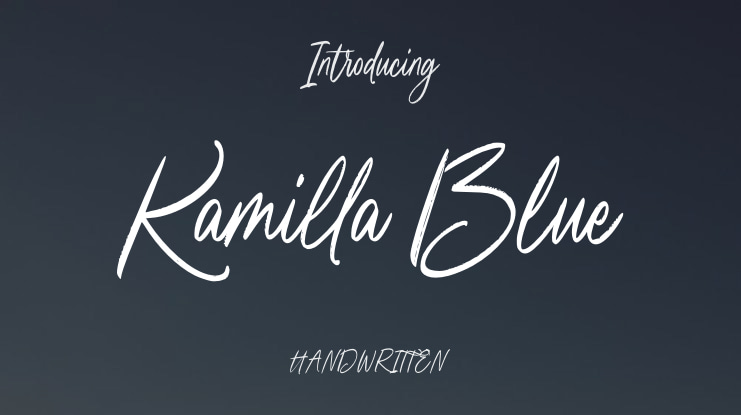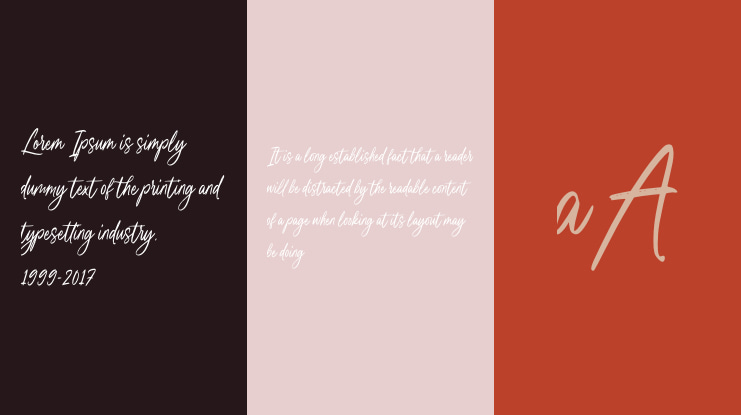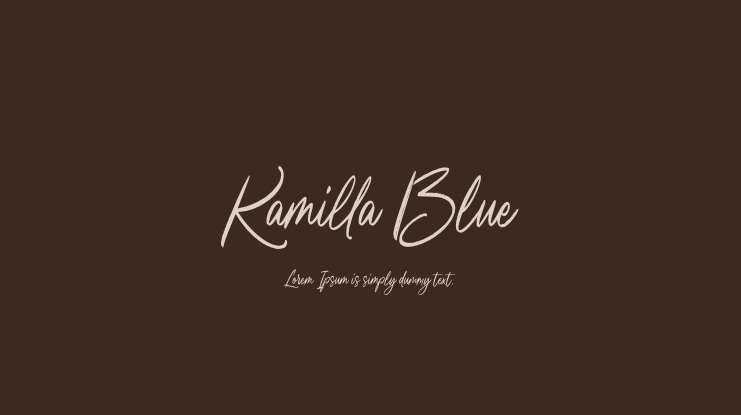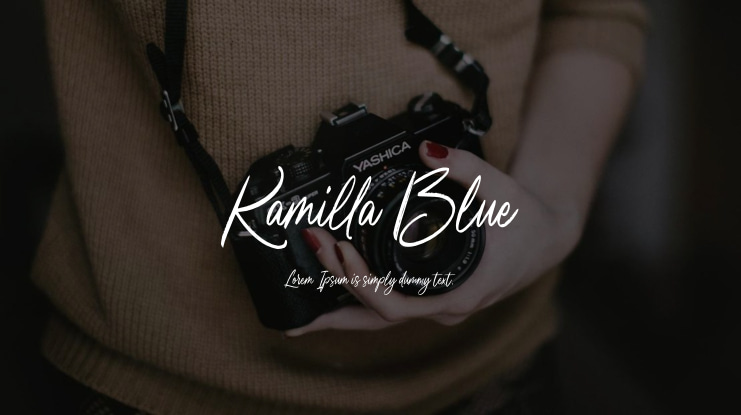
Kamilla Blue Font
Discover the allure of Kamilla Blue, an exquisite script typeface meticulously crafted to blend refinement with a hint of playfulness. Taking cues from emotive and expressive handwriting, this beautifully crafted typeface elevates any project with a graceful harmony of sophistication and joviality.
Kamilla Blue stands out with its fluid, seamlessly flowing lines and subtle curves that infuse a unique personal character into each design. Its authentic, handcrafted vibe gives it the versatility to excel in a wide array of applications. Whether you seek to create heartfelt greeting cards, graceful wedding invites, or a distinctive brand identity, Kamilla Blue consistently imbues every project with a special, individualized touch.
Every letter in this font pays tribute to the art of handwritten expression, offering a bespoke feel to your designs. Kamilla Blue invites you to delve into a realm of imagination and self-expression. Embrace the fanciful sophistication of Kamilla Blue and watch your creations blossom, imbued with the sincere enchantment of handcrafted artistry.